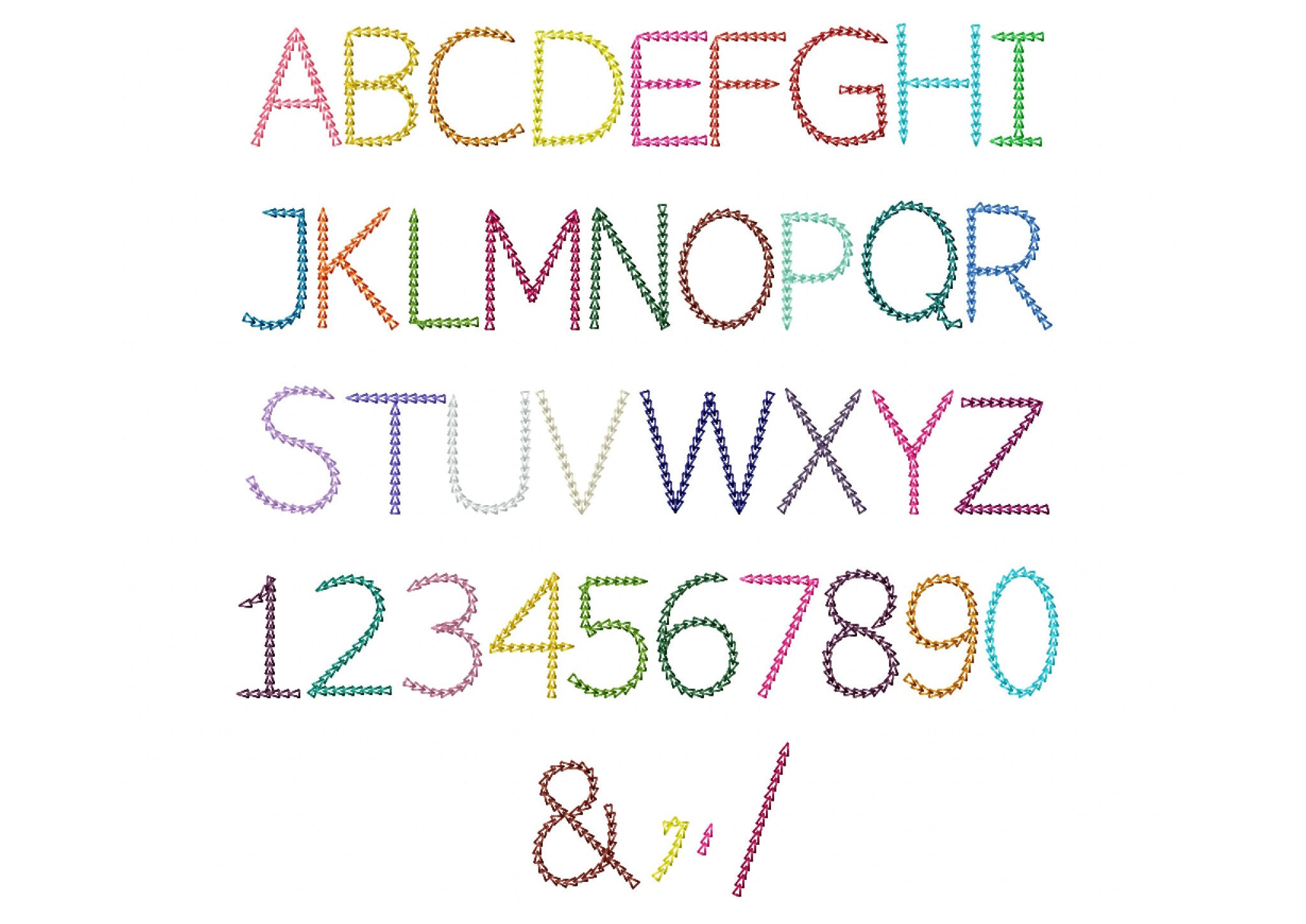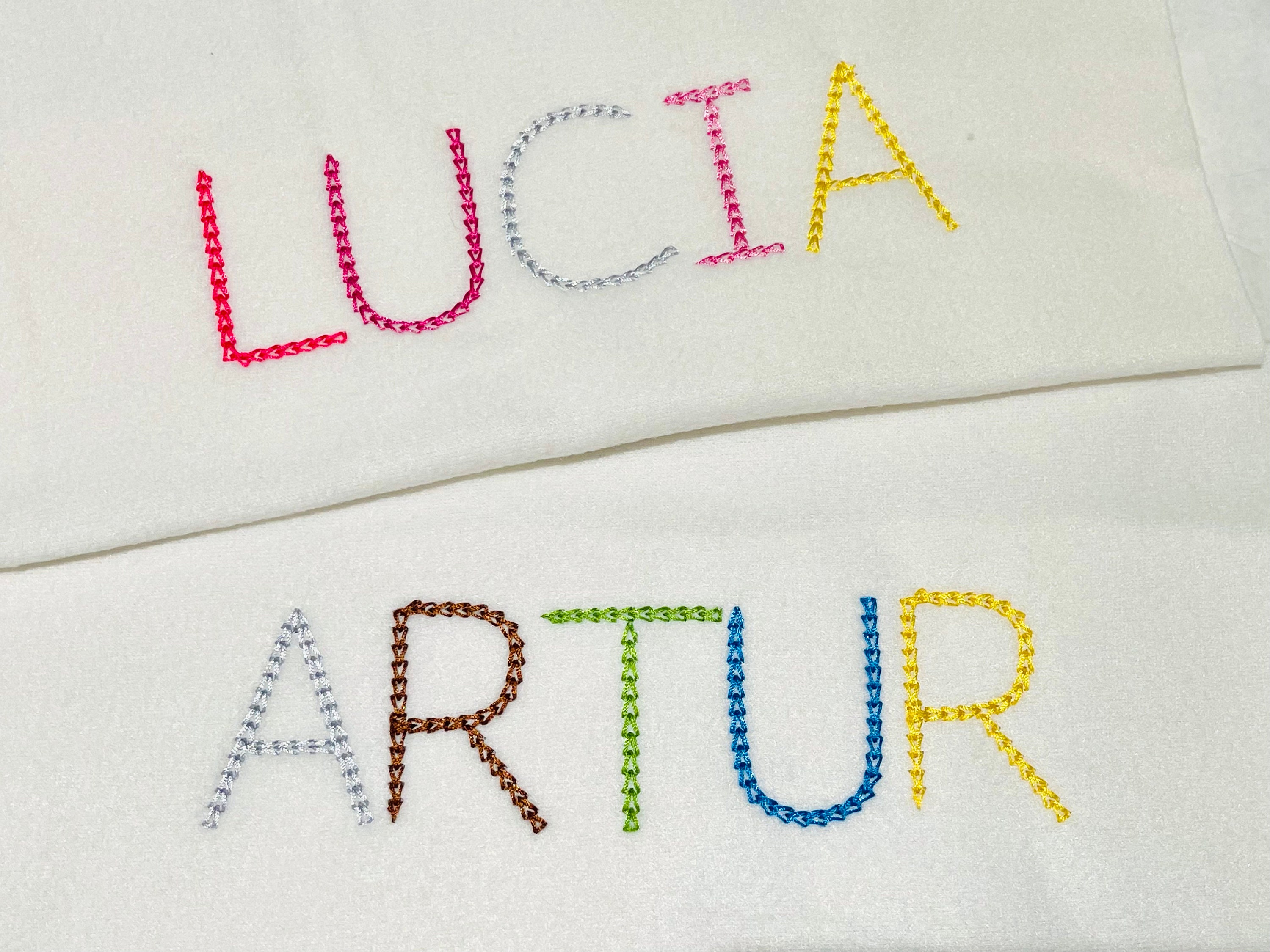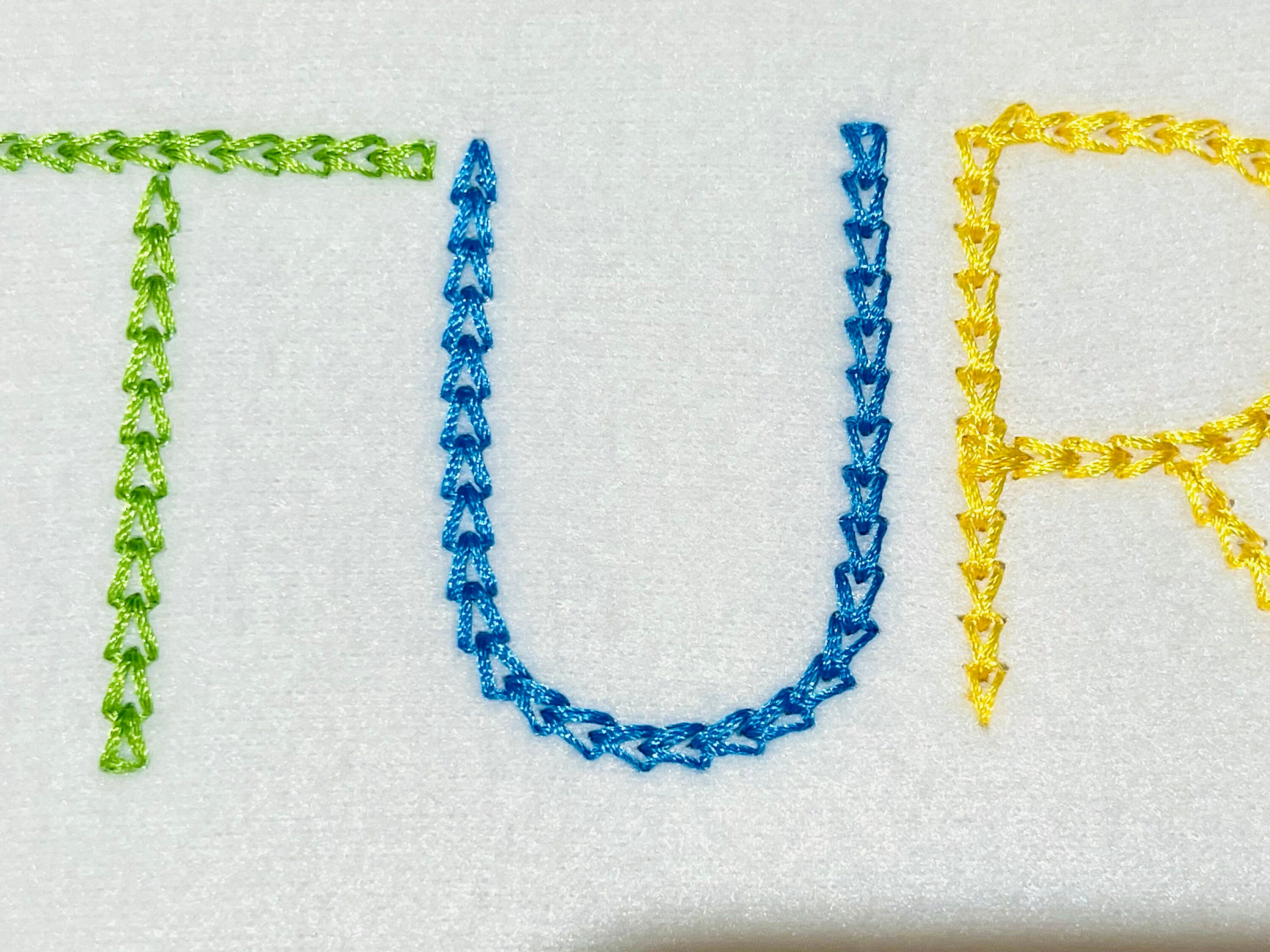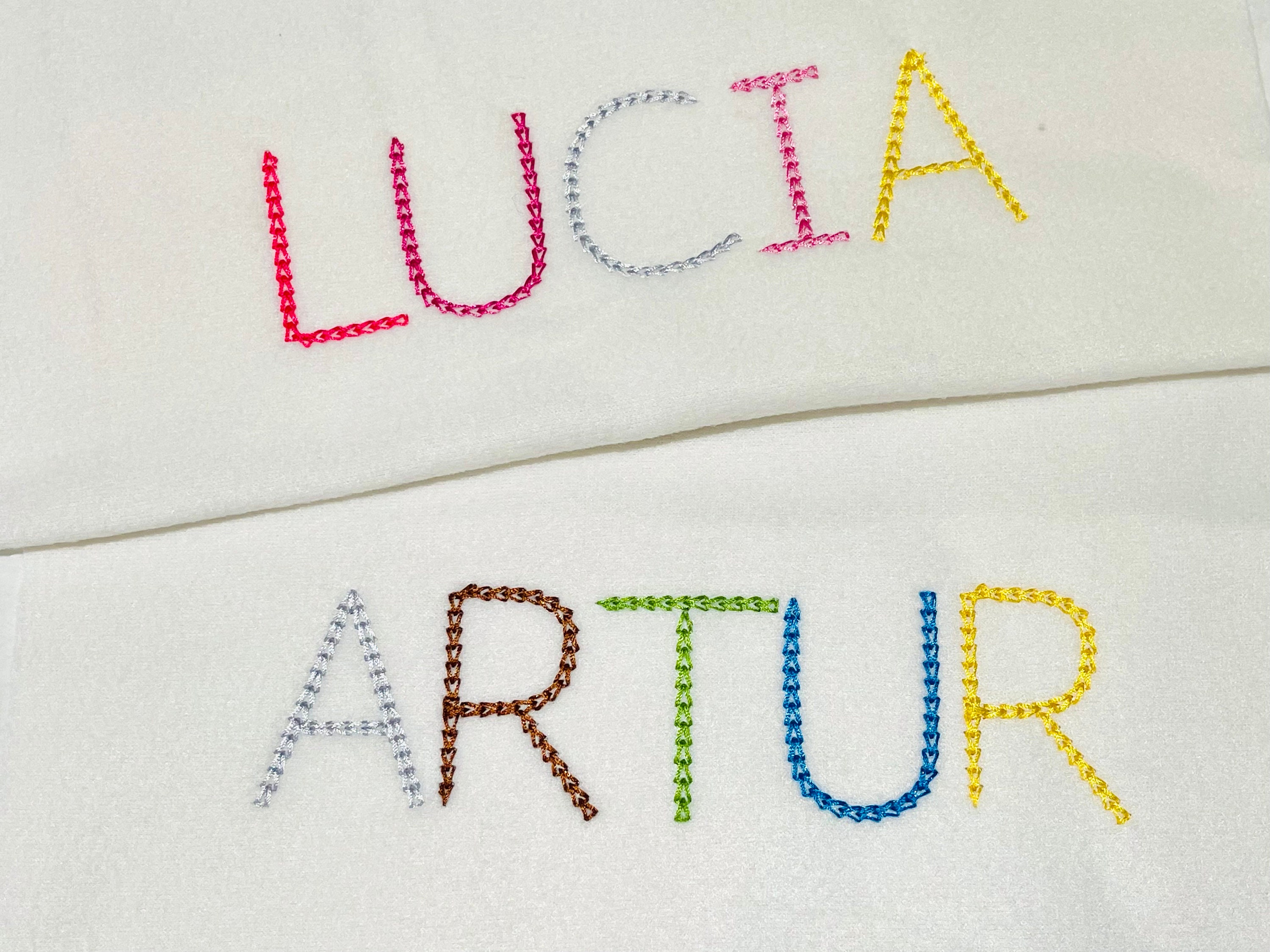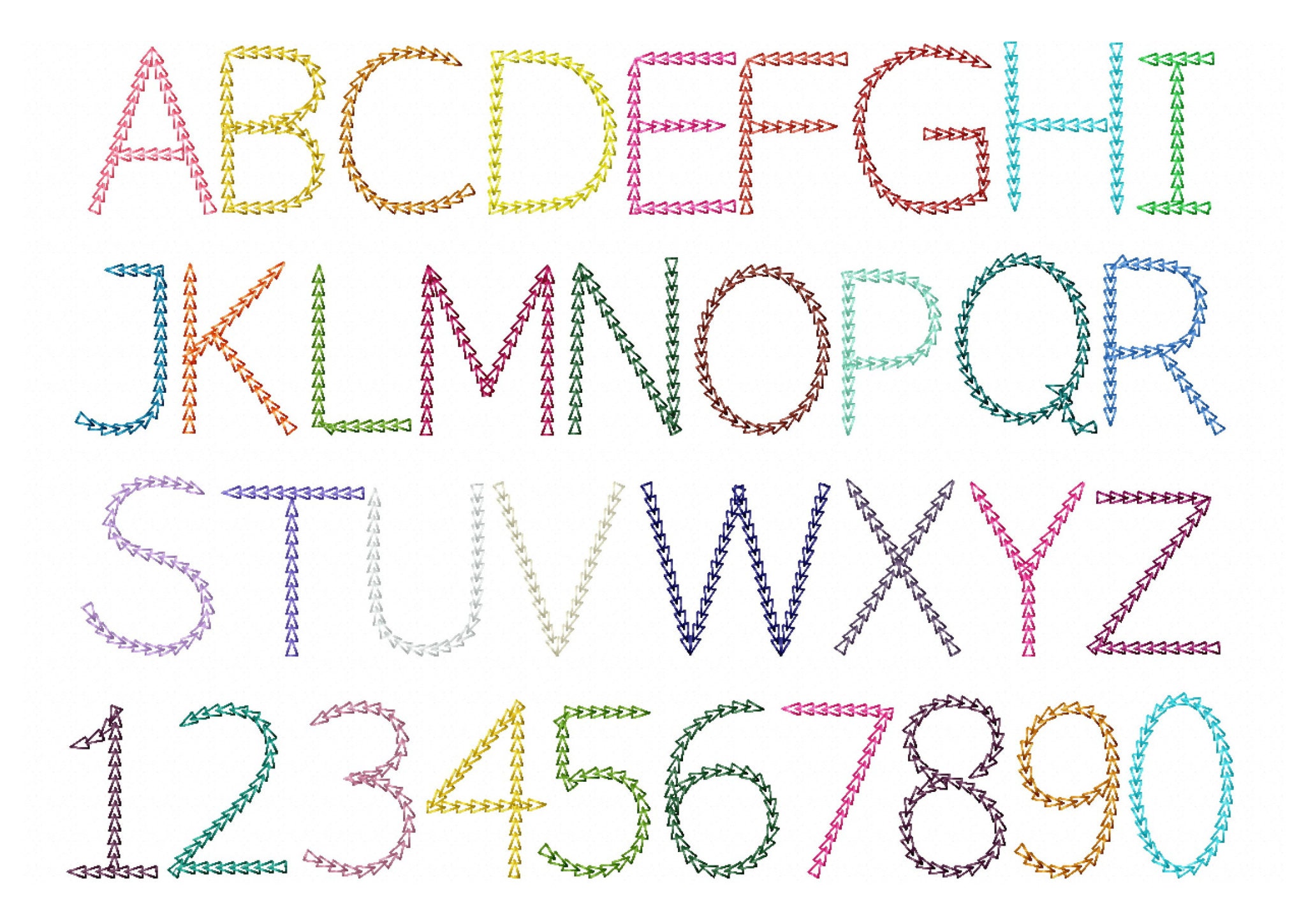
Quick light stitch Chain FONT machine embroidery designs in assorted mini sizes alphabet letters, playful kids link chain name, BX included
Whole alphabet A-Z uppercase, numbers 0-9, and punctuation.